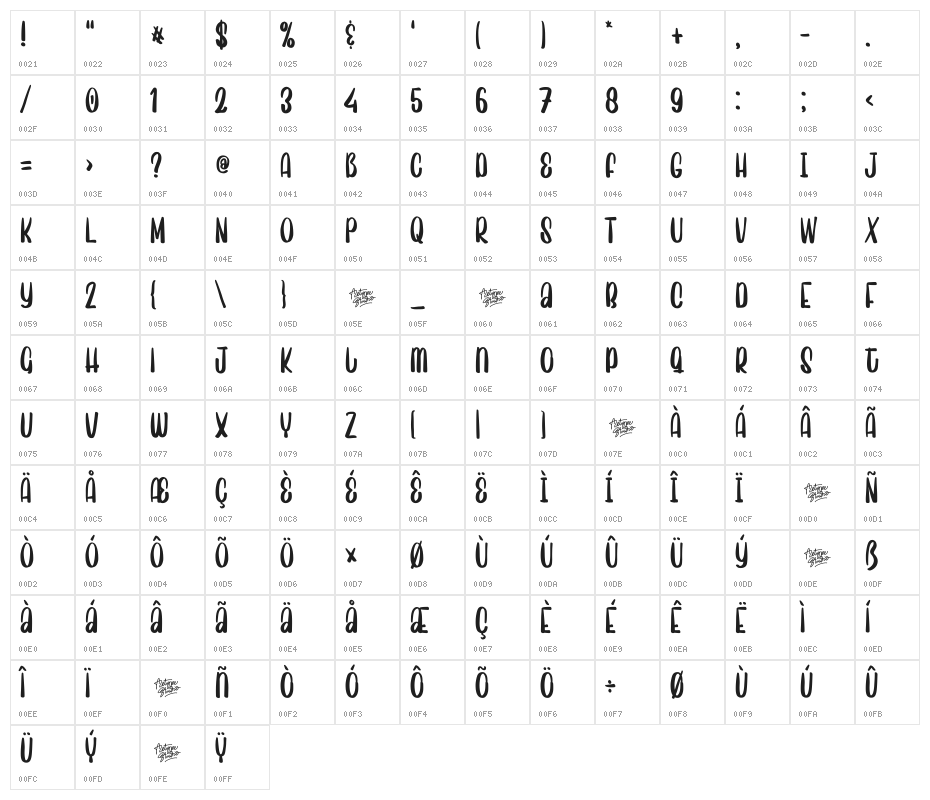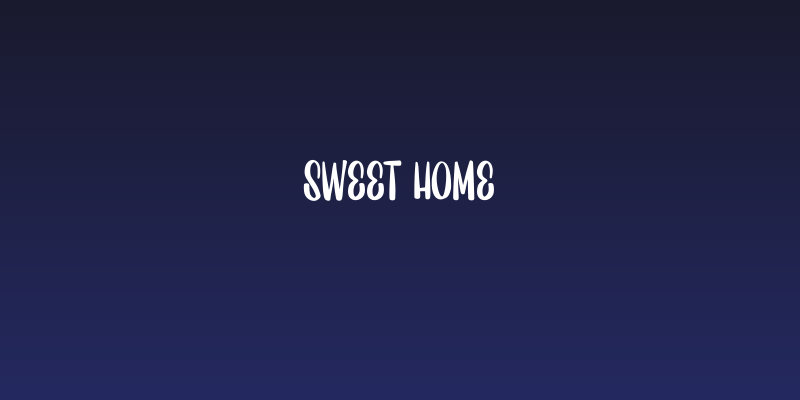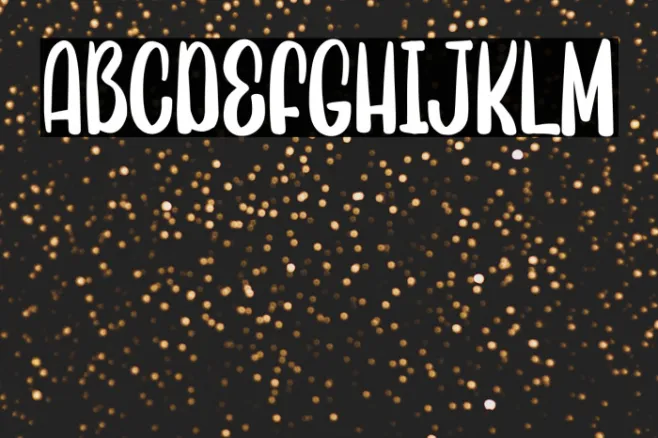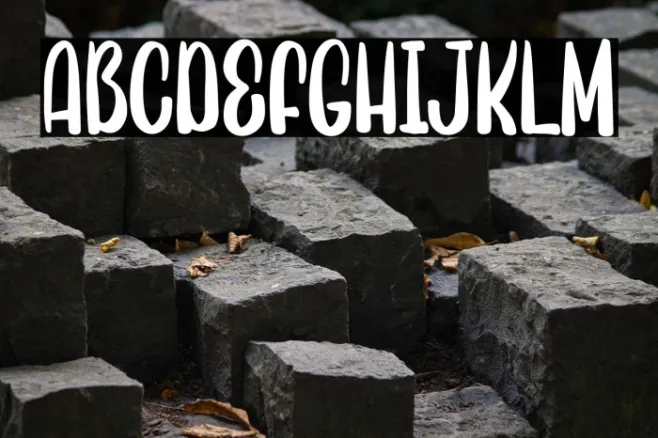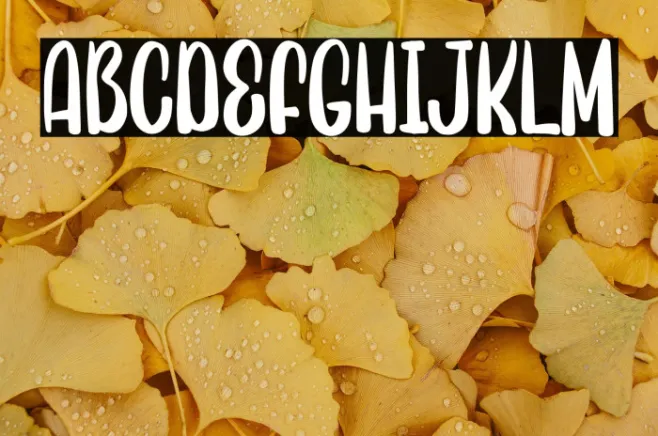
Sweet Home Font
Sweet Home Description
This playful and bold font features rounded, thick strokes with a hand-drawn aesthetic. The characters are slightly condensed, giving a compact and energetic feel. The uppercase and lowercase letters maintain a consistent style, with smooth curves and a friendly appearance. Numbers and special characters are designed to match the overall playful theme, making this font ideal for creative and informal projects. The font's unique style is perfect for adding a personal touch to any design, with its lively and approachable character.